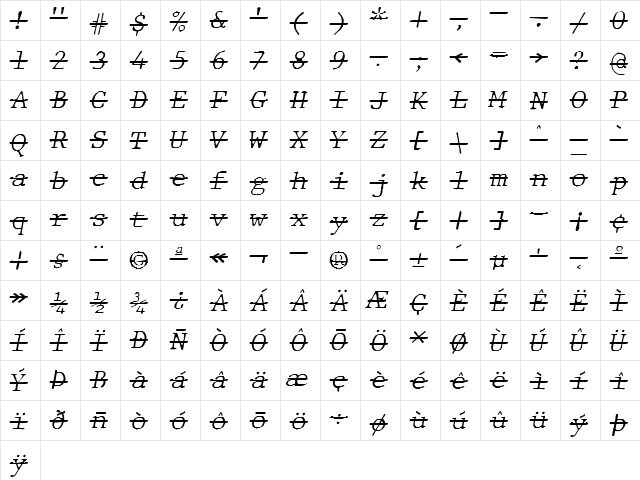
JMH Typewriter mono Fine Over Italic Font Preview
Design Context for JMH Typewriter mono Fine Over Typeface
JMH Typewriter mono Fine Over uses fixed-width spacing throughout, giving it the structured, systematic character associated with coding environments and technical documentation. Its italic angle brings a sense of urgency and motion to the letterforms.
A natural fit for code editors, technical documentation, developer-focused branding, and terminal-inspired UI.
Pro Tip: Pair JMH Typewriter mono Fine Over with a proportional sans for UI contexts where code-style labels and regular body copy need to coexist.